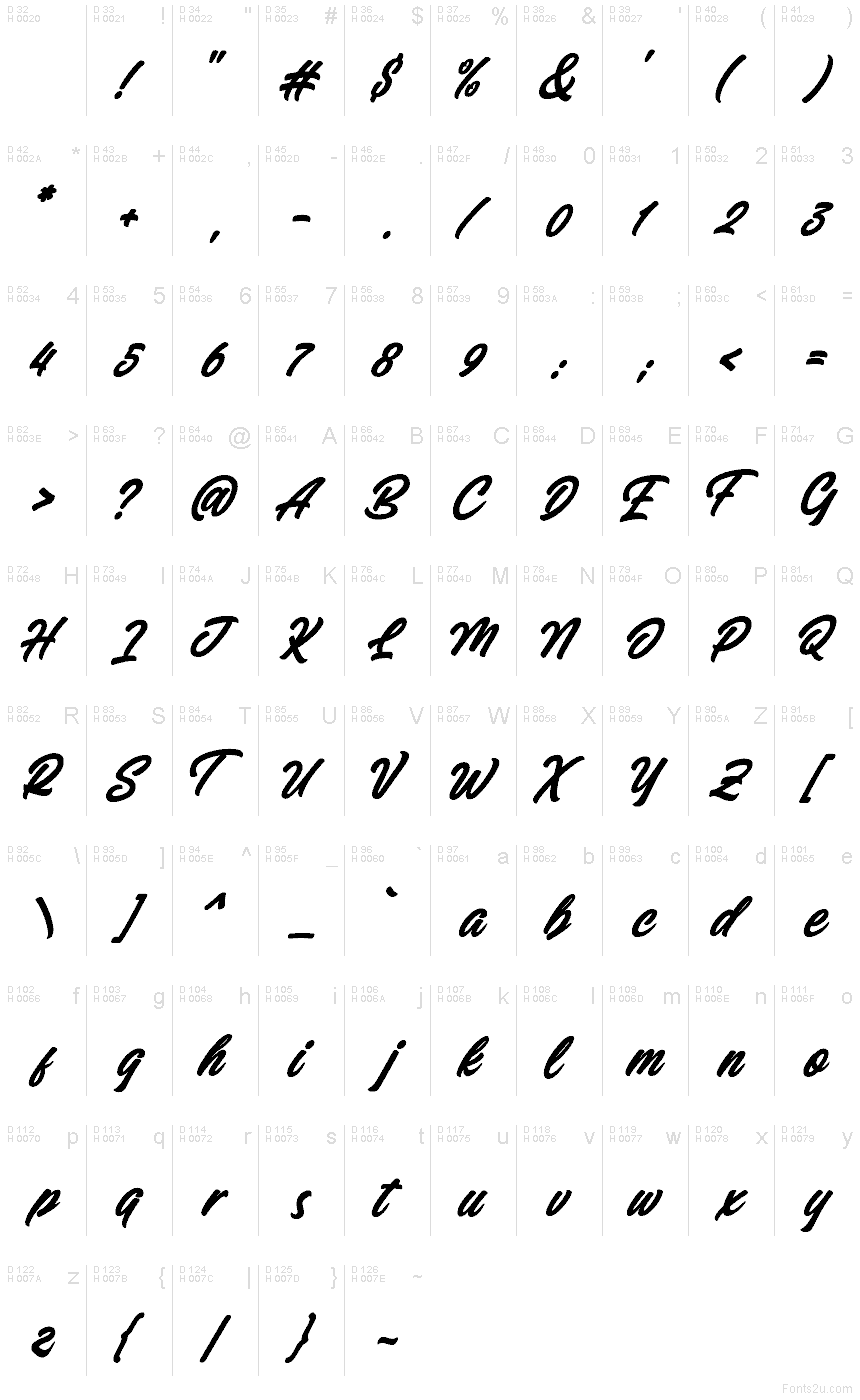
Letteris
Letteris font from Hanzel Space captures the essence of script-style writing with its expressive, casual elegance. Condensed strokes build a modern aesthetic characterized by a flowing movement that enhances the balance and proportions of this brush and signature font. Suitable for creative projects, Letteris helps artists add a stylish modern touch in plenty of ways.
Features:
- Full set of standard alphabet and punctuation
- Multilingual characters (ẂŴẄẀŶỲ ẃŵẅẁŷỳ)